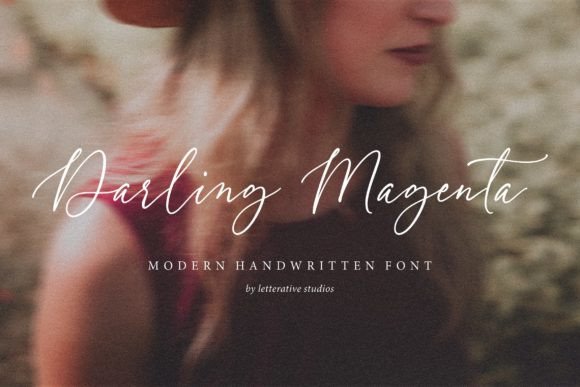
Behold, Darling Magenta, a dazzling script font that will ignite your creative spirit! Crafted with meticulous attention to detail, this font exudes elegance and charm, making it the perfect choice for a wide range of projects.
Darling Magenta's graceful curves and delicate swashes will add a touch of sophistication to your designs, whether you're creating eye-catching logos, stunning invitations, or heartfelt greeting cards. Its versatility knows no bounds, as it seamlessly complements both traditional and modern aesthetics.
Imagine the impact of Darling Magenta on your next marketing campaign. Its captivating presence will command attention and leave a lasting impression on your audience. Let your brand shine with Darling Magenta's timeless beauty, setting you apart from the competition.
Unleash your creativity and let Darling Magenta guide you to new heights of design excellence. Its carefully crafted characters will elevate your projects, transforming them into masterpieces that captivate and inspire. Indulge in the beauty of Darling Magenta and witness the transformation of your creative vision into a stunning reality.
For those with a passion for personalization, Darling Magenta offers endless possibilities. Experiment with different colors and effects to create a font that truly reflects your unique style. Whether you prefer bold and vibrant hues or subtle and understated tones, Darling Magenta will adapt flawlessly to your creative vision.
Step into the world of Darling Magenta and embark on a creative journey like no other. Discover the boundless potential of this extraordinary font and witness the magic it weaves into your designs. Let Darling Magenta be your muse, inspiring you to create masterpieces that resonate with beauty, elegance, and timeless charm.